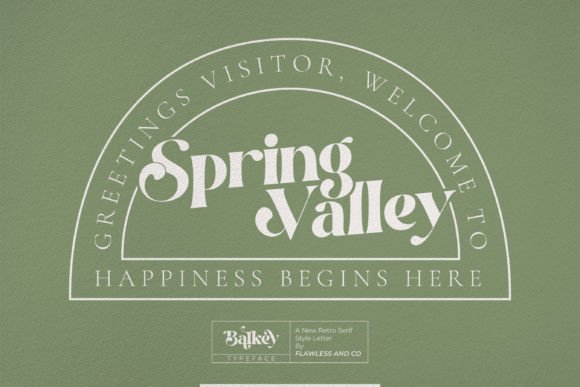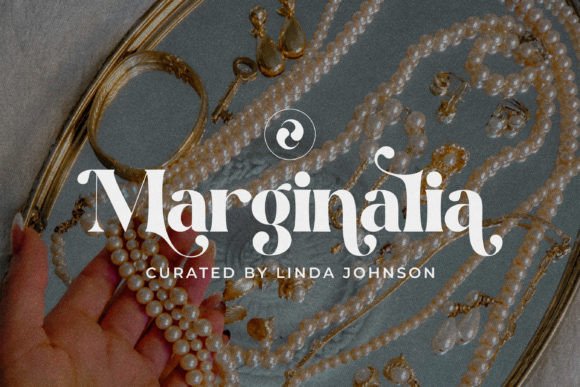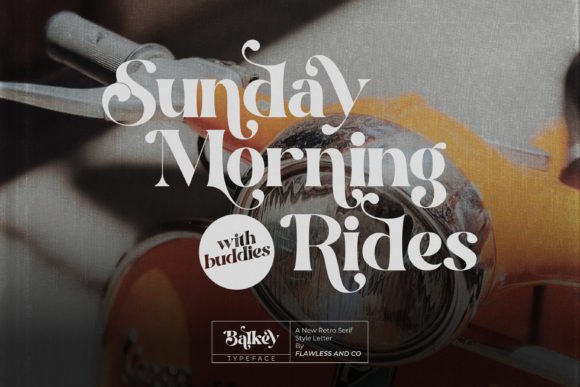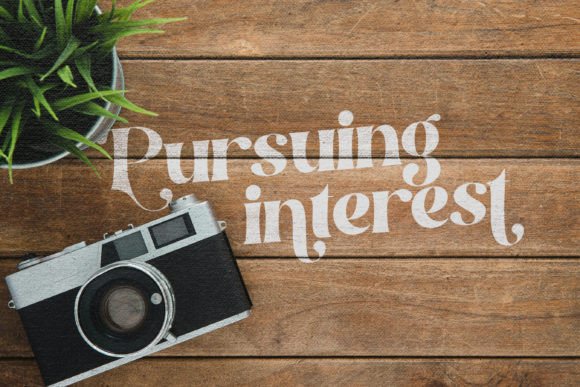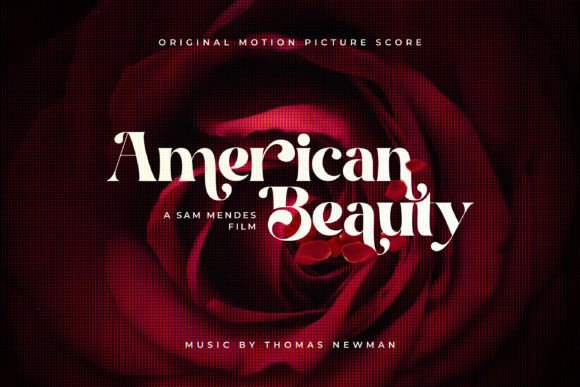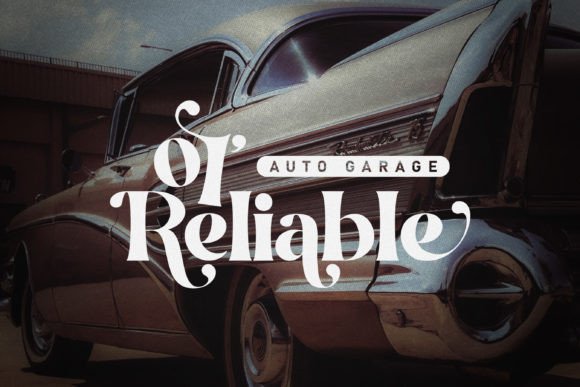
Introducing Balkey Font: Elevate Your Designs with a Touch of Retro Elegance
In the world of typography, fonts play a crucial role in conveying the tone and personality of a design. For designers and crafters looking to add a dash of nostalgia and whimsy to their projects, Balkey Font is an excellent choice. This captivating retro serif display font is designed to bring a touch of fun and uniqueness to your designs, making it perfect for projects that demand a hint of playful elegance.
The Charm of Balkey Font
Balkey Font boasts a distinct style that is reminiscent of the classic serifs of the past, yet with a modern twist that sets it apart from more traditional fonts. Its nostalgic charm is undeniable, evoking memories of vintage posters, classic films, and bygone eras. With Balkey, you can add a touch of sophistication and glamour to your designs, while still maintaining a playful and approachable feel.
Key Features of Balkey Font
- Retro Serif Design: Balkey’s serif design is inspired by the classic typography of the past, with a modern twist that makes it perfect for contemporary designs.
- Display Font: With its bold and eye-catching design, Balkey is perfect for use as a display font, making it ideal for headlines, titles, and other prominent text elements.
- Playful Elegance: Balkey’s unique blend of nostalgia and whimsy makes it perfect for projects that demand a touch of playful elegance.
- Versatility: Whether you’re working on a logo, poster, or social media graphic, Balkey’s versatility makes it an excellent choice for a wide range of design projects.
Balkey Font is an excellent choice for designers and crafters looking to add a touch of personality to their projects. Whether you’re working on a client project or a personal endeavor, Balkey’s unique style is sure to make your design stand out. With its wide range of applications, Balkey is perfect for:
- Logos and Branding: Use Balkey to create a memorable and eye-catching logo that reflects your brand’s personality.
- Posters and Flyers: Add a touch of nostalgia and whimsy to your posters and flyers with Balkey’s retro serif design.
- Social Media Graphics: Use Balkey to create eye-catching social media graphics that are sure to grab attention.
- Packaging and Labels: Add a touch of elegance and sophistication to your packaging and labels with Balkey’s playful serif design.
Tips for Using Balkey Font
To get the most out of Balkey Font, here are a few tips to keep in mind:
- Use it as a Display Font: Balkey is designed to be used as a display font, so use it to create eye-catching headlines and titles.
- Experiment with Colors: Balkey’s retro serif design looks great in a wide range of colors, so don’t be afraid to experiment and find the perfect hue for your design.
- Pair it with Other Fonts: Balkey pairs well with a wide range of fonts, so try pairing it with other serif or sans-serif fonts to create a unique and interesting design.
In conclusion, Balkey Font is a captivating retro serif display font that is perfect for designers and crafters looking to add a touch of fun and uniqueness to their designs. With its distinct style and nostalgic charm, Balkey is sure to make your design stand out. Whether you’re working on a logo, poster, or social media graphic, Balkey’s versatility and playful elegance make it an excellent choice. So why wait? Download Balkey Font today and let your creativity soar!